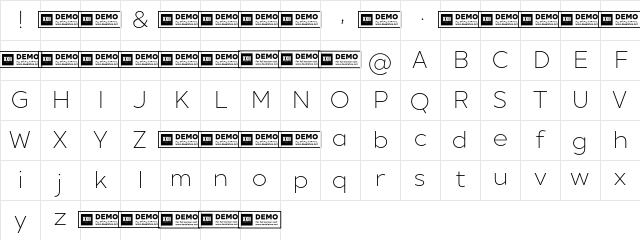
XXII Geom DEMO is a composed and adaptable typeface that performs quietly and consistently across a wide range of design contexts. Its slender proportions lend an understated elegance to any composition.